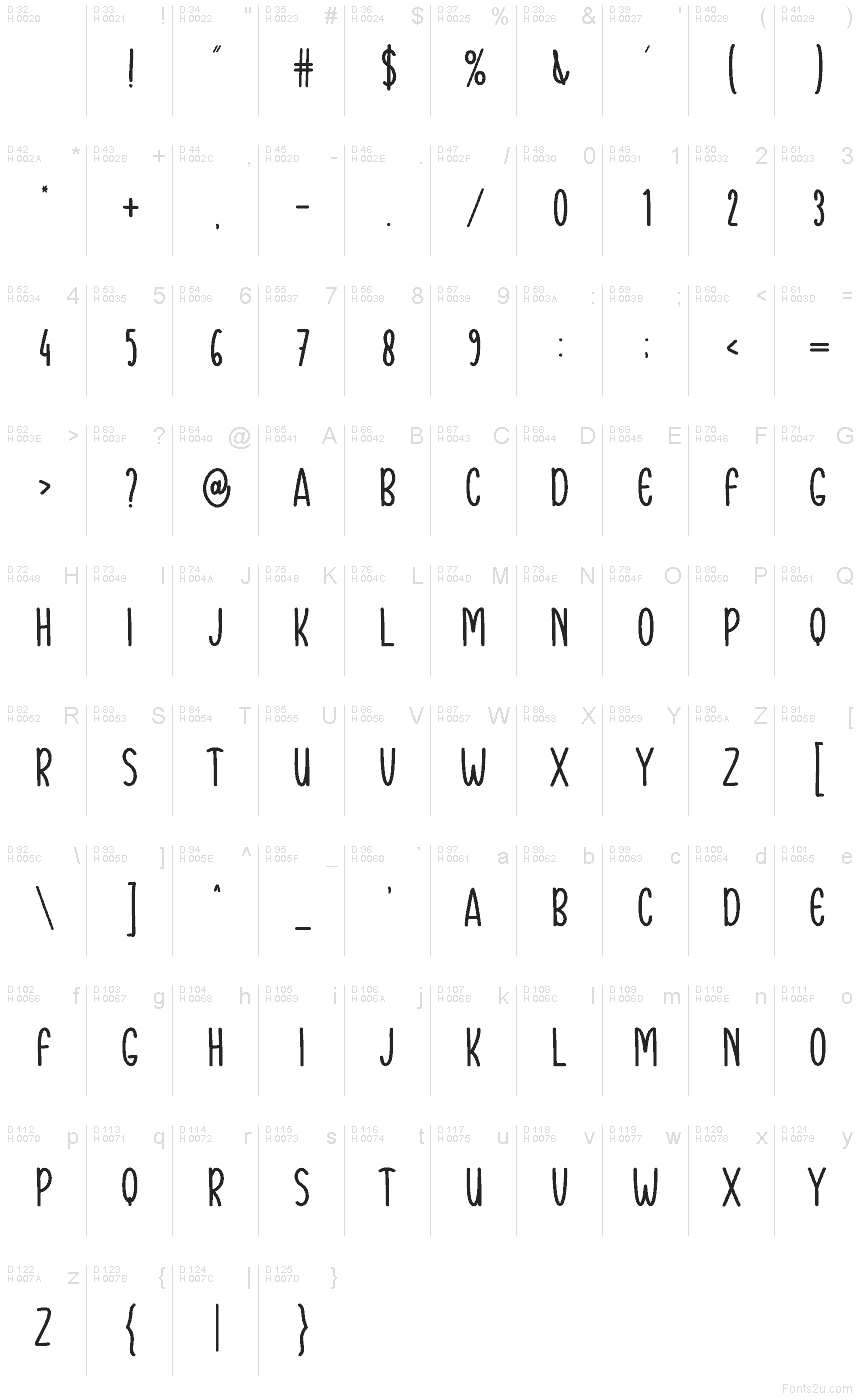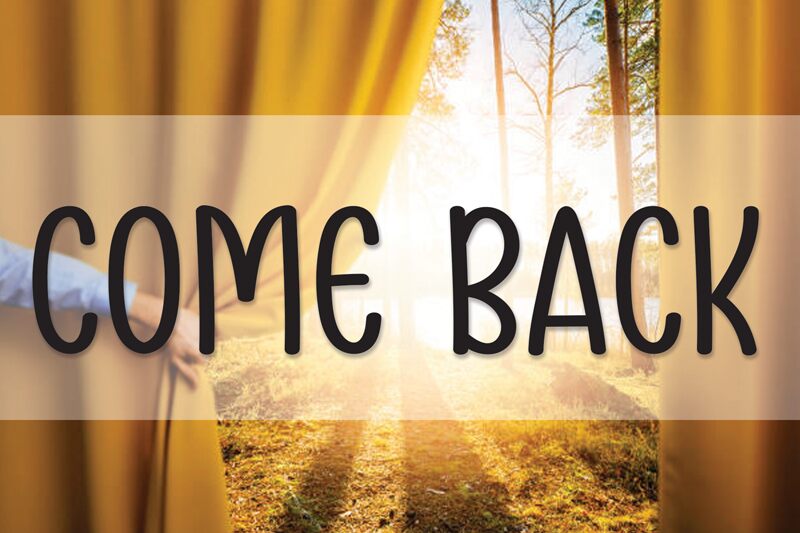
Come Back
Come Back font by Andi Moz is a free handwritten font with irregular shapes and a casual style. Its condensed characters showcase an unmatched retro tone resembling classic advertisements and posters. The style feels familiar for its casual structure while still being unique thanks to unusual shapes in some of the letterforms.
Abstract logo designs, branding and packaging design, label patterns, badges, or watermarks are all potential projects where Come Back would fit perfectly well. In addition to those ideas, use it for poster titles, book titles, vintage-style invitations or social post visuals.